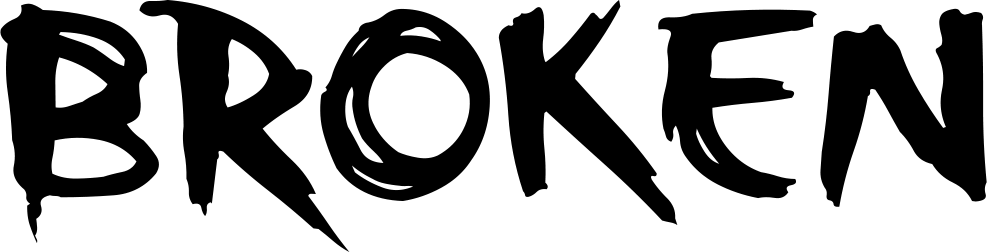
Broken Font
Designed byPaulo Cunha Jr.
Need a trashy look for your text? Broken can do the job perfectly. This script font has bold characters with brush-stroke designs that you can add to your collection.
You can use it for informal news headlines, movie and cartoon names, comic books, party and sale flyers, shop signs, and logo design. Shady Lane has capitalized characters and is lacking a punctuational set.